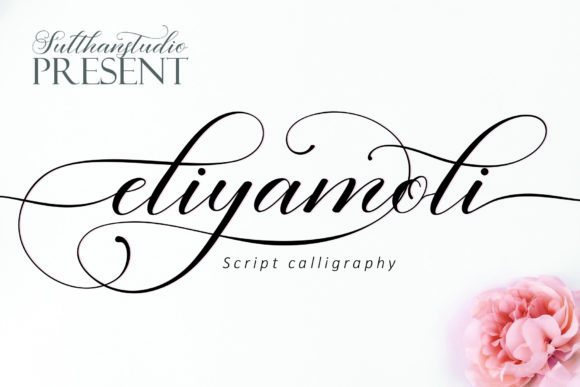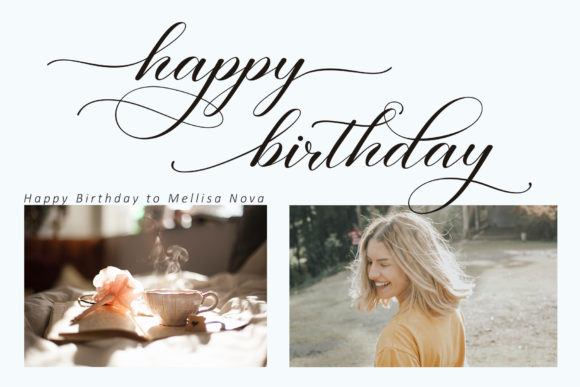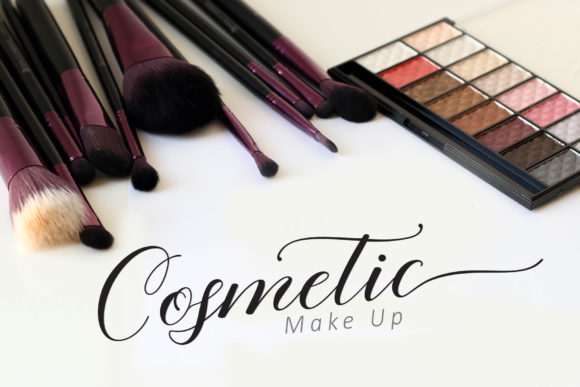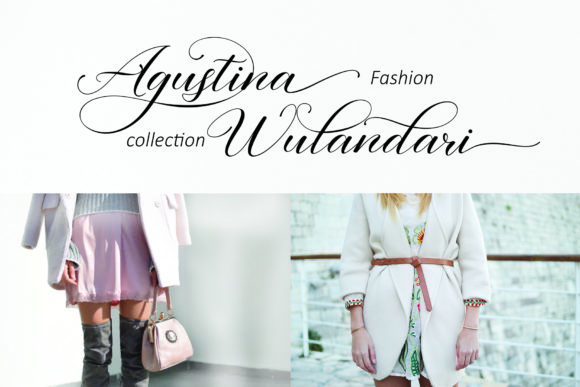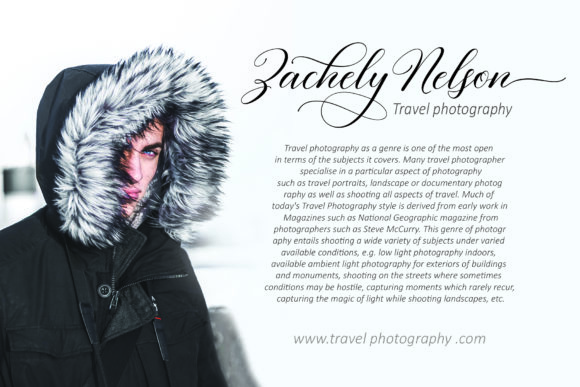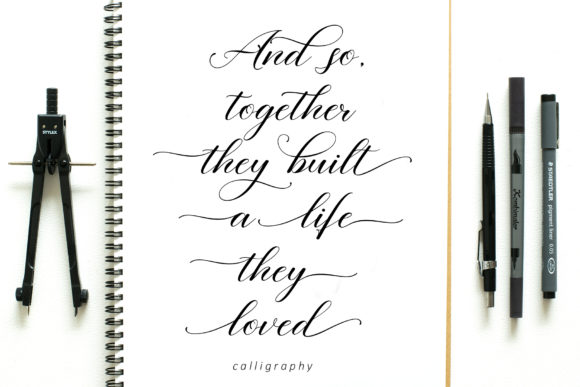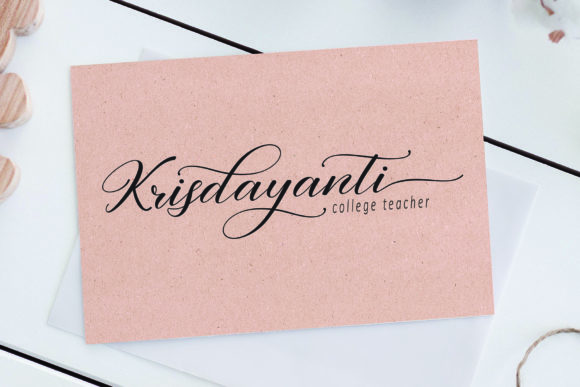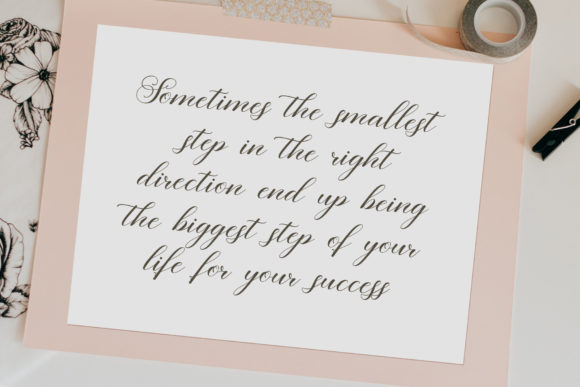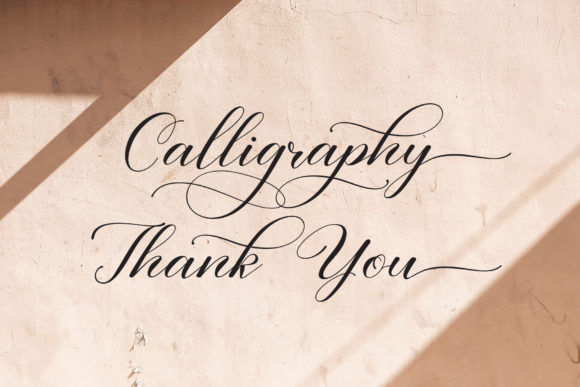
HomeScript FontsEliyamoli Font Script Fonts Eliyamoli Font FacebookXPinterestWhatsApp Eliyamoli Font Poster 2 Eliyamoli Font Poster 3 Eliyamoli Font Poster 4 Eliyamoli Font Poster 5 Eliyamoli Font Poster 6 Eliyamoli Font Poster 7 Eliyamoli Font Poster 8 Eliyamoli Font Poster 9 About Eliyamoli Font Eliyamoli is a stylish and bold script font with amazing swashes. It will take any craft idea to the next level. DOWNLOAD ON CREATIVE FABRICAThis font is sold and delivered by Creative Fabrica. Font Canyon may earn a commission if you buy through this link. People also explored Eliensee Font Peonydash Font Sparkling Khufis Font Litton Font Tropic Garden Font Beone Thin Font Winter Morning Font Planet Earth Font Mettalia Font 341 0 TagsEliyamoli Font Previous articleBrownies FontNext articleAklay Font LEAVE A REPLY Cancel reply Comment: Please enter your comment! Name:* Please enter your name here Email:* You have entered an incorrect email address! Please enter your email address here Website: Save my name, email, and website in this browser for the next time I comment. Personal Use Free Doriss Girls Family Personal Use Free Read more about this font The Royal Personal Use Free Read more about this font Spring Personal Use Free Read more about this font Twisty Girlz Personal Use Free Read more about this font BLOG To increase your work productivity, choose the most readable fonts. In today's fast-paced work environment, where digital communication and information consumption are integral to our daily routines, the choice of fonts can significantly impact... Best Fonts for YouTube Videos: Make Your Thumbnails Stand Out The 10 Best Handwriting Fonts to Add Personality to Your Designs Where to Buy American Fonts Online in 2024